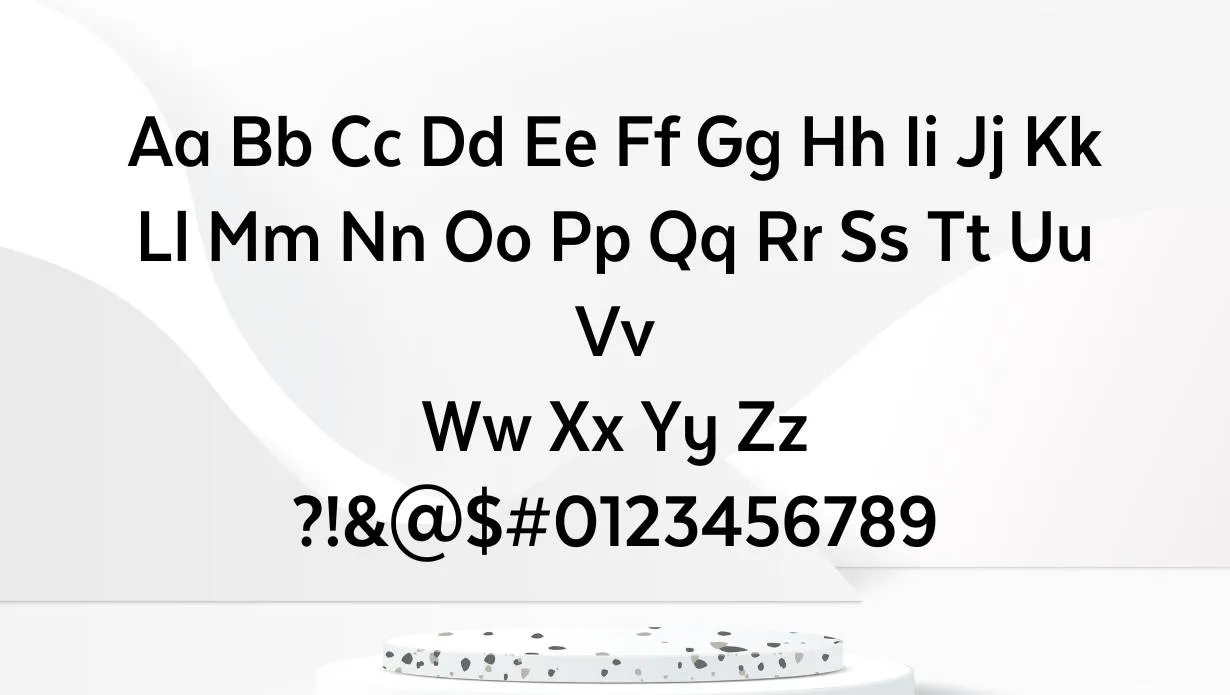
Texta Narrow Font is a versatile and readable sans-serif typeface. It’s often used in editorial design, branding, and web design where a clean and organized appearance is essential.
The font’s narrow design ensures efficient use of space while maintaining excellent legibility. Utilizing the SF diego sans font opens up possibilities for creating extraordinary designs.
| Name | Texta Narrow Font |
| Designer | Latinotype |